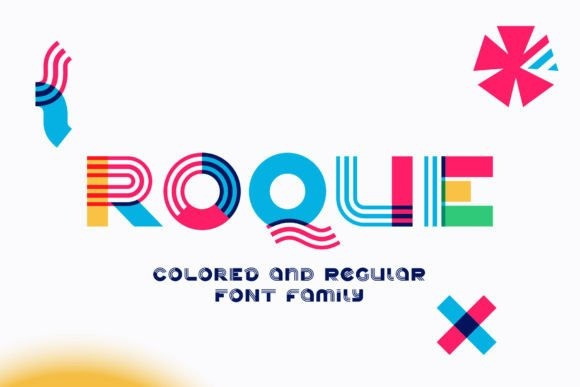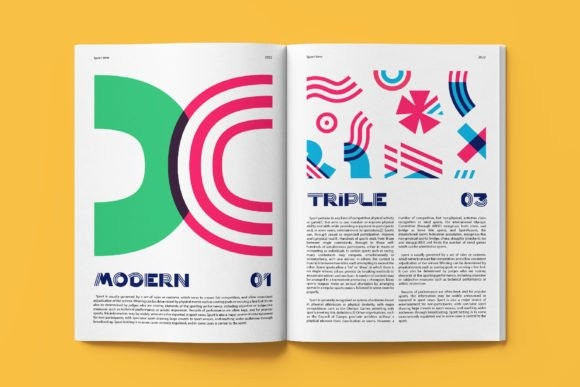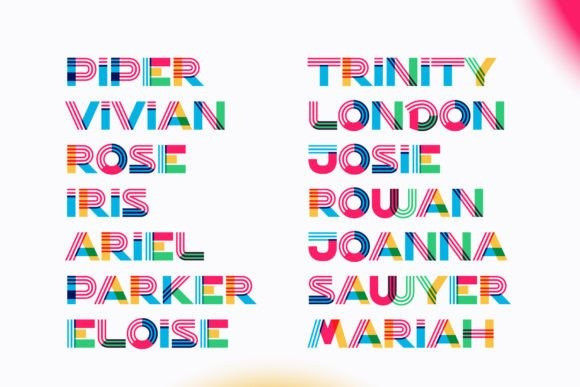
Roque Font
All the letters in this font were colored brightly and vividly with colors overlay. You can use it in your corporate identity, in magazines, posters, clothes design, and others.